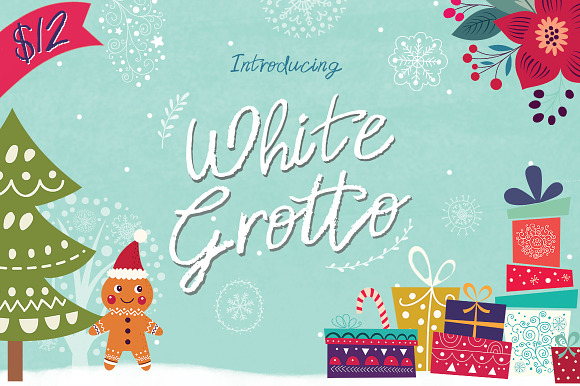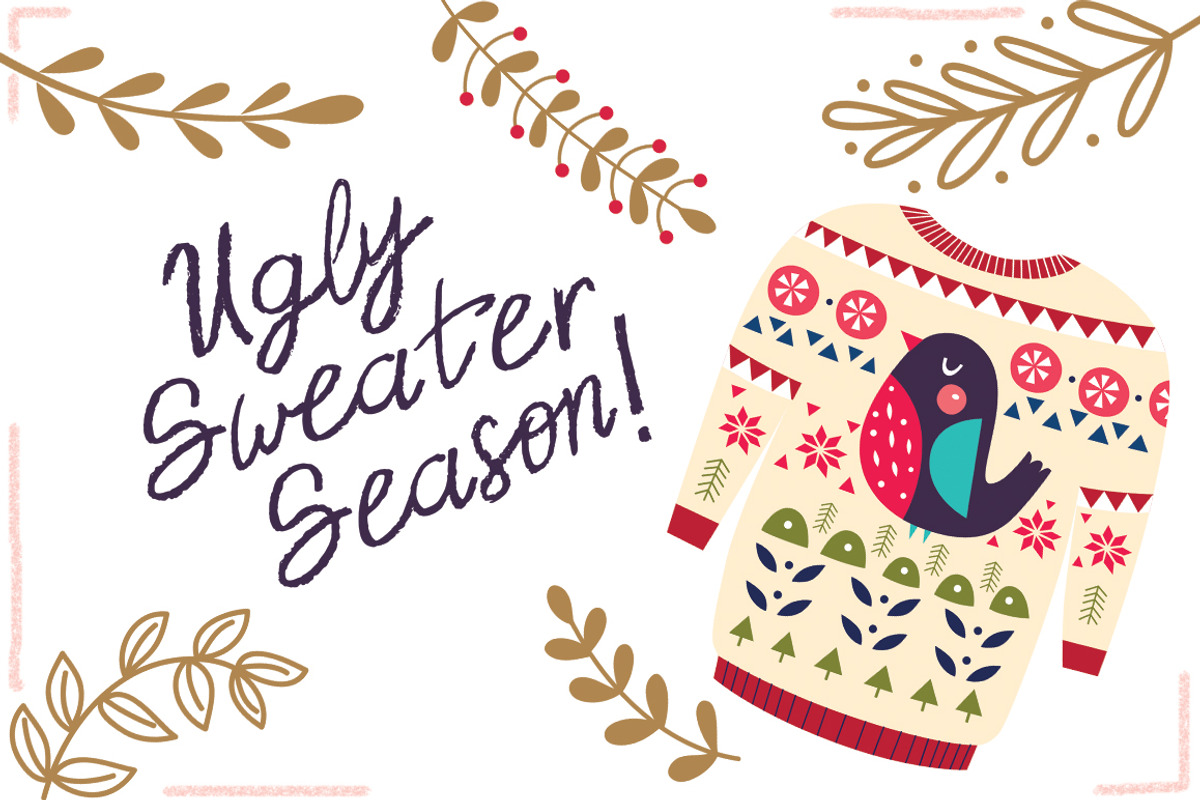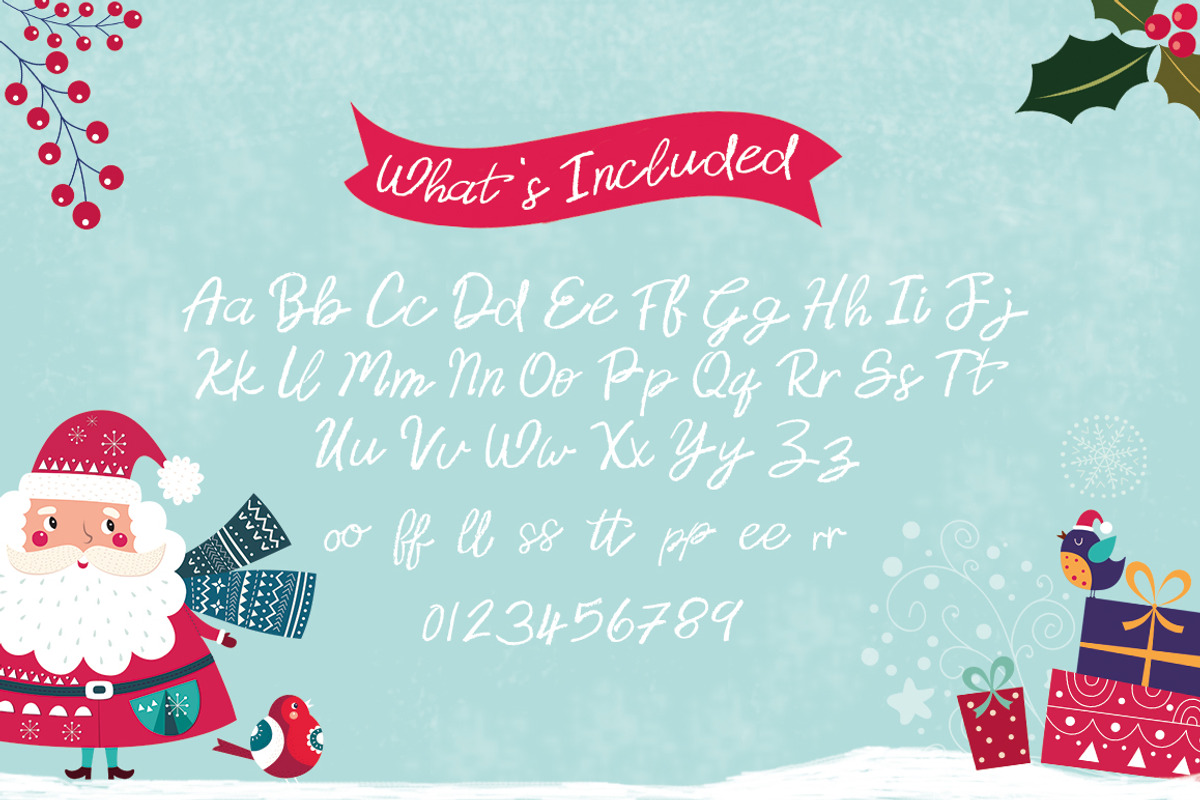
White Grotto Font
Introducing 'White Grotto'. A fab new font that Santa himself would approve of! It looks like it could be made of real snow! Perfect for all of your holiday designs, including those letters to the jolly man himself! Enjoy!
White Grotto Font by Salt & Pepper Designs fits naturally into Branding, posters, packaging, typography.